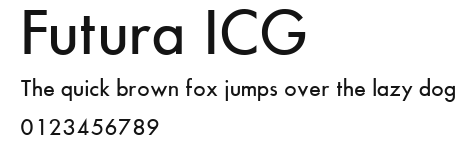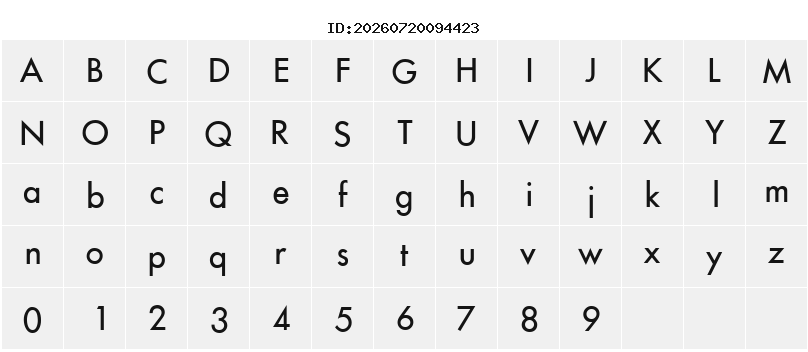
• Font Name: Futura ICG
• Full Font Name: Futura ICG
About Futura ICG.ttf
Futura ICG.ttf is a modern, elegant sans-serif font designed for ultimate readability and visual harmony. Perfect for branding, headlines, web design, and print materials.